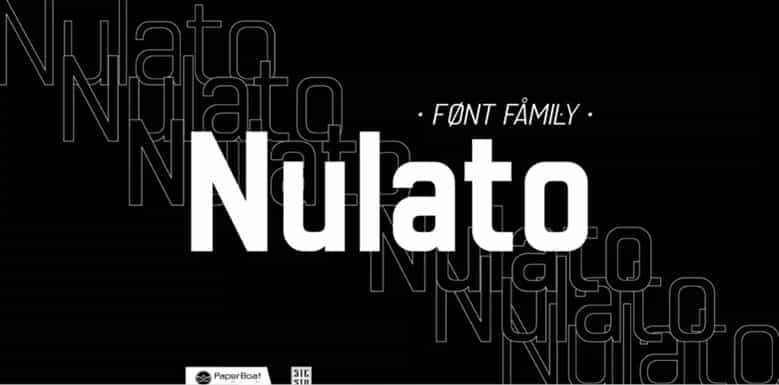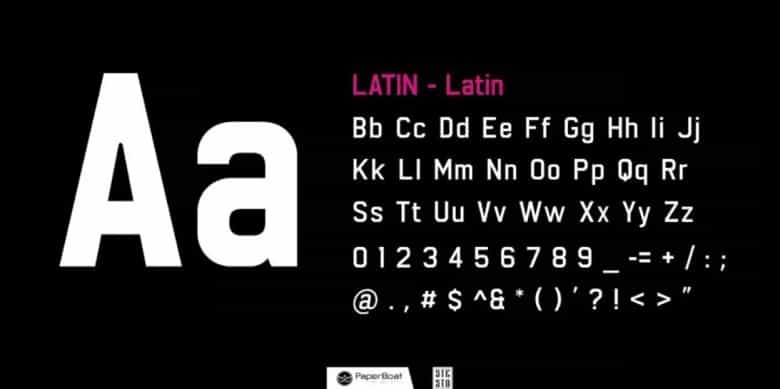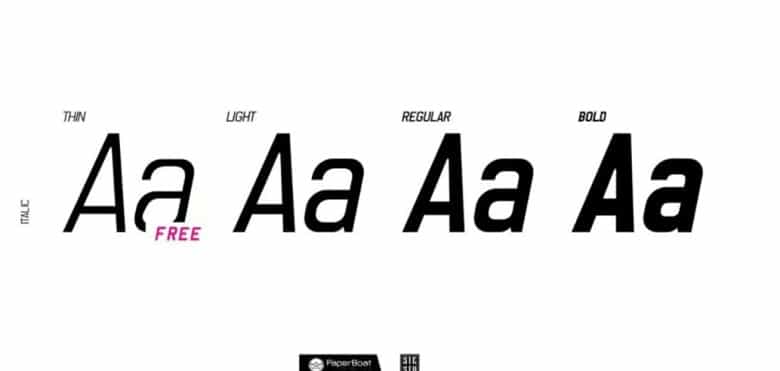
Nulato Font
Nulato is sans serif typeface, which is modeled after the magnificent Alaskan outdoors and the spherical contours of the horizon. The font is a current and shiny embodiment of a muted pattern beneath the essence of excellent systematization of branding image. Nulato required one year of development, including initial sketches to the current 700+ glyphs lot of research and even more variables were involved in the process. The letters, certain ligatures and other symbols constitute a stickful.